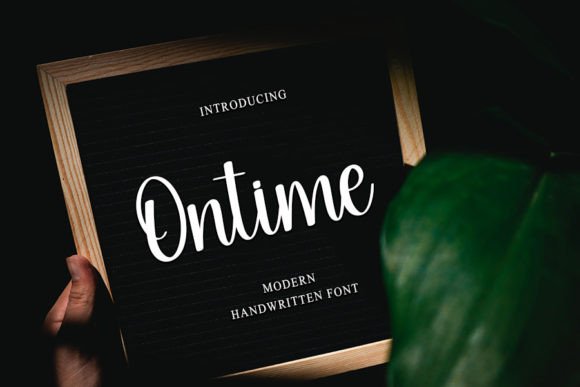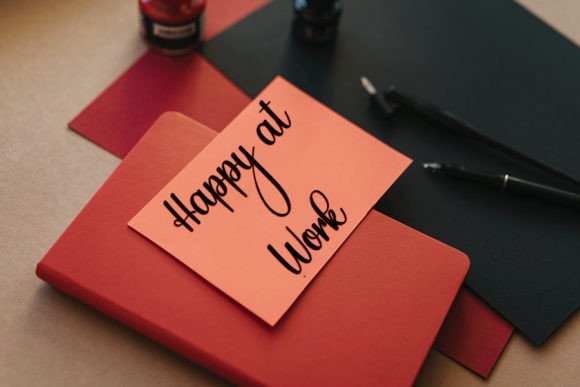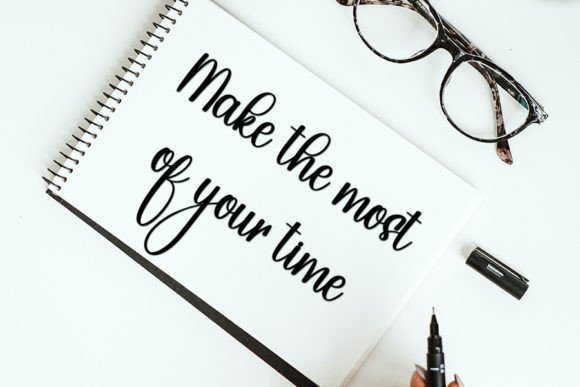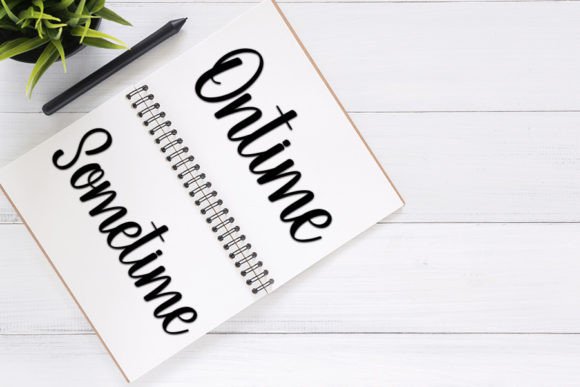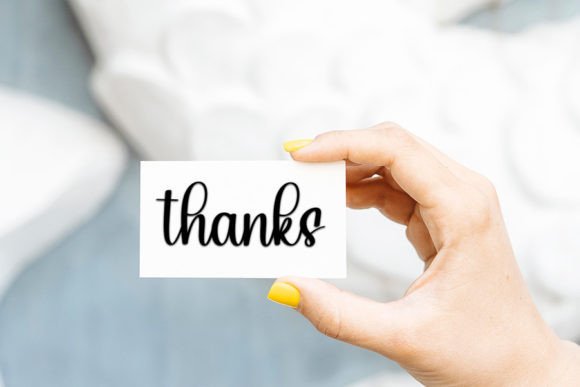
Ontime Font
Ontime Font: Elegant Handwriting for Timeless Designs
“Ontime” is a neat and beautiful handwritten font that embodies an elegant and timeless style. It’s perfect for various creative projects, adding sophistication to your designs.
Key Features of Ontime Font
• Elegant Style: Ontime brings a refined and classic look to designs.
• Versatile Use: Suitable for many projects, from branding to invitations.
• Timeless Appeal: Creates a sophisticated and memorable atmosphere in typography.
Ontime’s elegant style is ideal for creating sophisticated logo designs and branding materials that convey refinement.
Invitations and Stationery
Use Ontime to design beautiful wedding invitations and special event materials that exude class.
Editorial and Print Design
The font’s timeless look makes it perfect for creating eye-catching magazine layouts and print materials.
Why Choose Ontime Font?
Ontime offers more than just beautiful letters. Here’s why it stands out:
• Elevates overall aesthetics with its elegant script style
• Conveys a sense of beauty and timelessness effectively
• Adapts well to various design themes and creative endeavors
By using Ontime, you open up new design possibilities. Its elegant style works well in many contexts, from greeting cards to website headers. The font’s ability to convey sophistication can inspire creative ideas and help you approach projects from a fresh, refined perspective.
Ontime in Modern Design Trends
This font aligns perfectly with design trends that favor elegant simplicity. Its handwritten style adds a personal touch while maintaining a sophisticated feel, making it particularly effective for brands targeting upscale markets or those aiming for a timeless, refined image.
If you’re looking for a font that combines elegance with versatility, Ontime is an excellent choice. It’s perfect for adding a touch of sophistication to your work, especially for projects that need a classic, refined feel.
Explore how Ontime can transform your designs. From poster designs to personal creations, this font brings a timeless and captivating quality to your work.